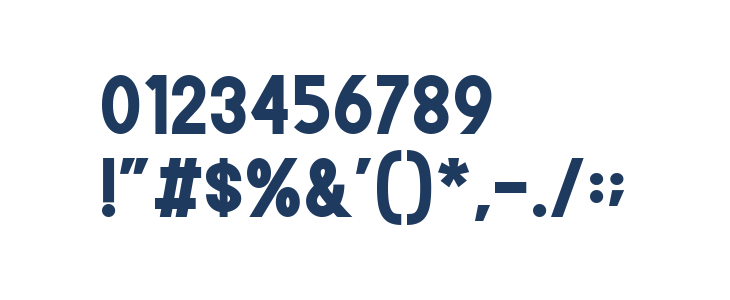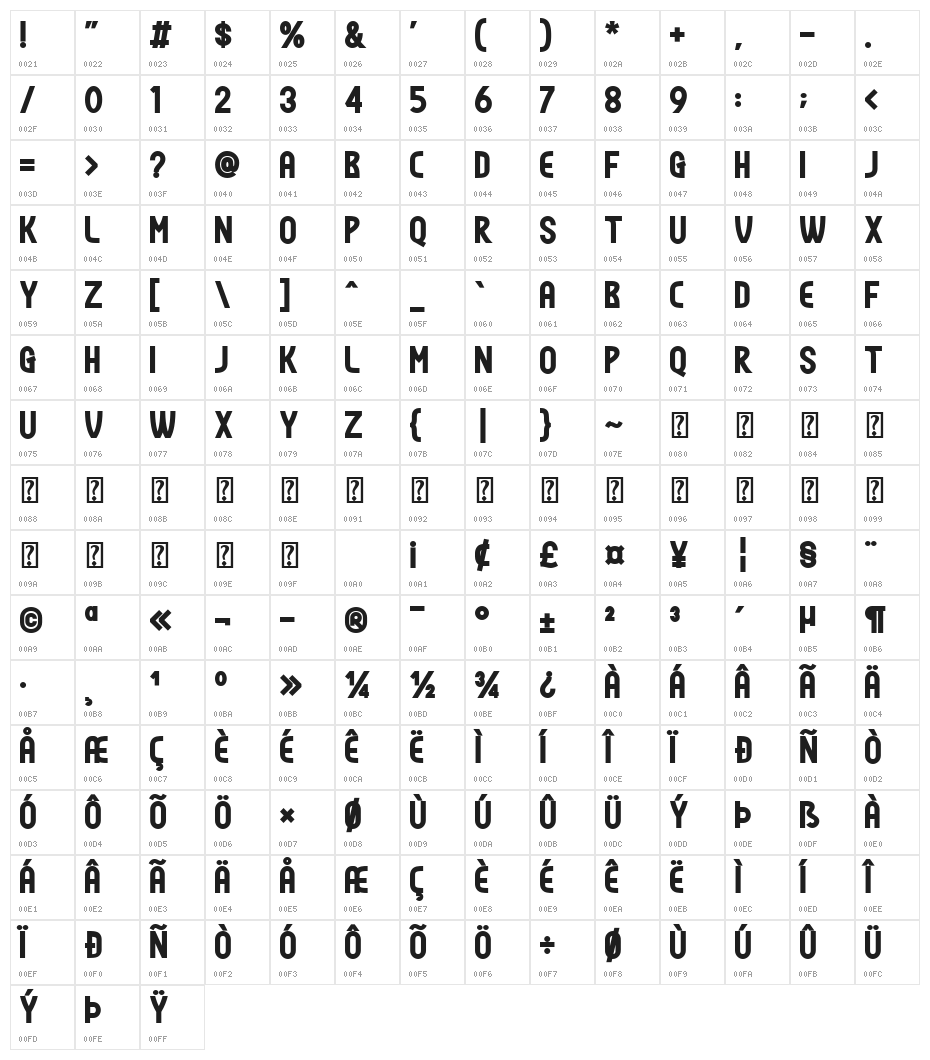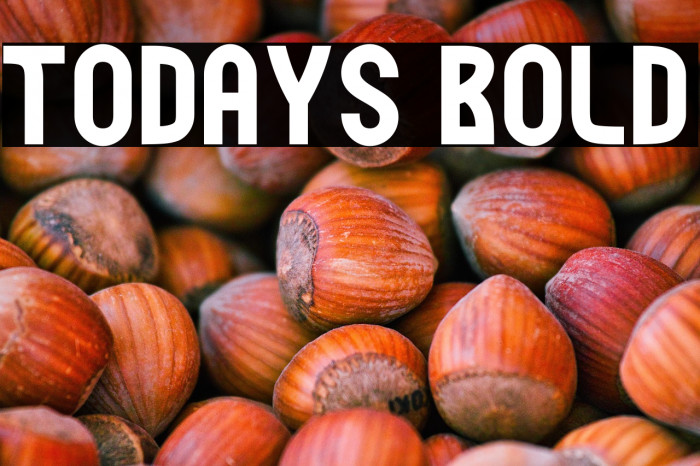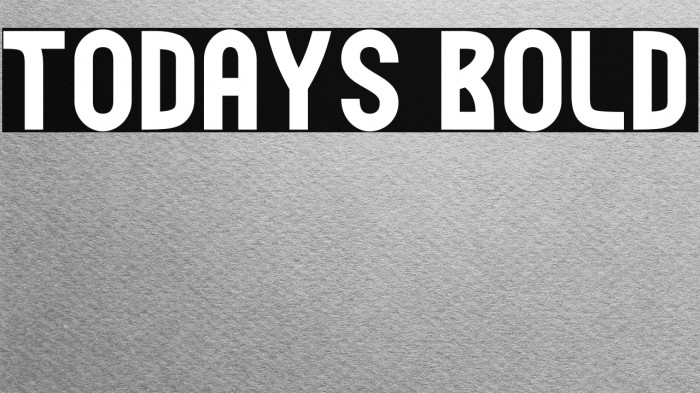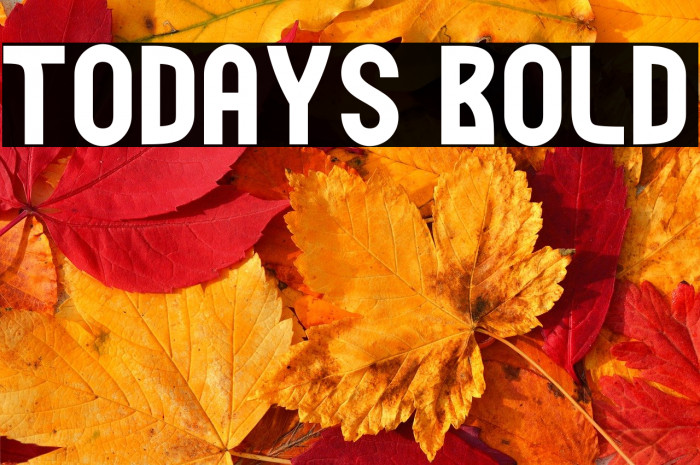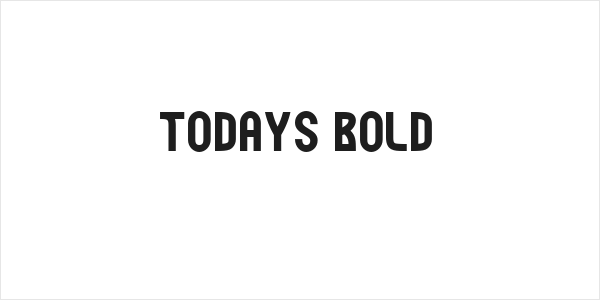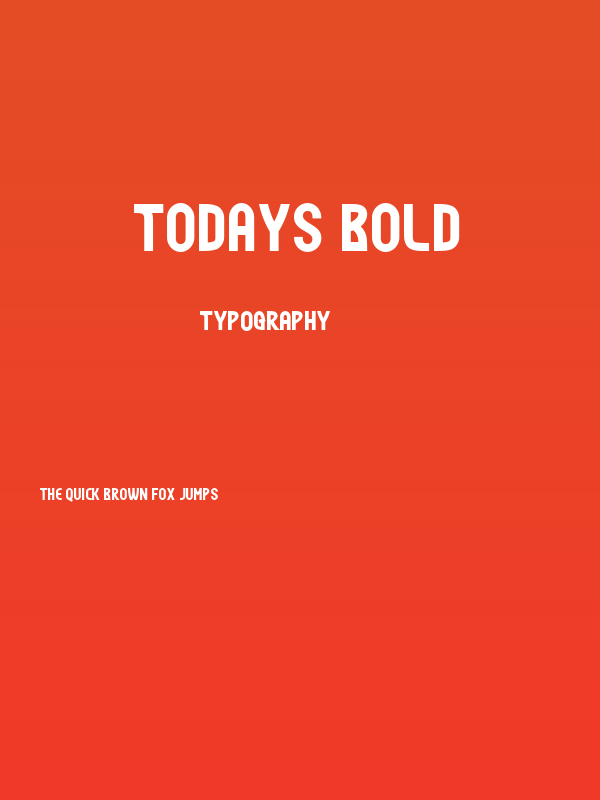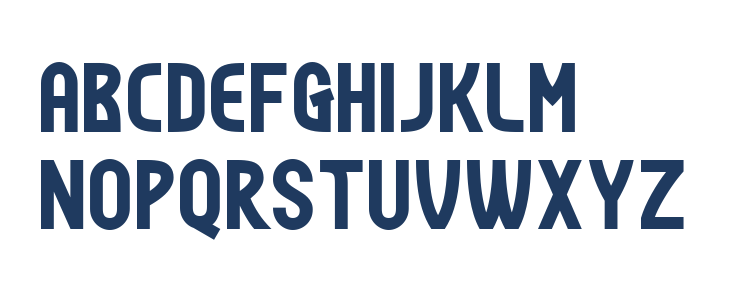
Todays Bold Font
Todays Bold Description
This font exhibits a bold and assertive style, characterized by thick, uniform strokes that convey strength and modernity. The uppercase letters are particularly striking, with a geometric influence that adds a contemporary edge. The numerals are equally bold, ensuring readability and impact. Special characters are designed with the same robust aesthetic, making them stand out effectively. Overall, this font is designed to make a statement, suitable for projects that require a strong visual presence.